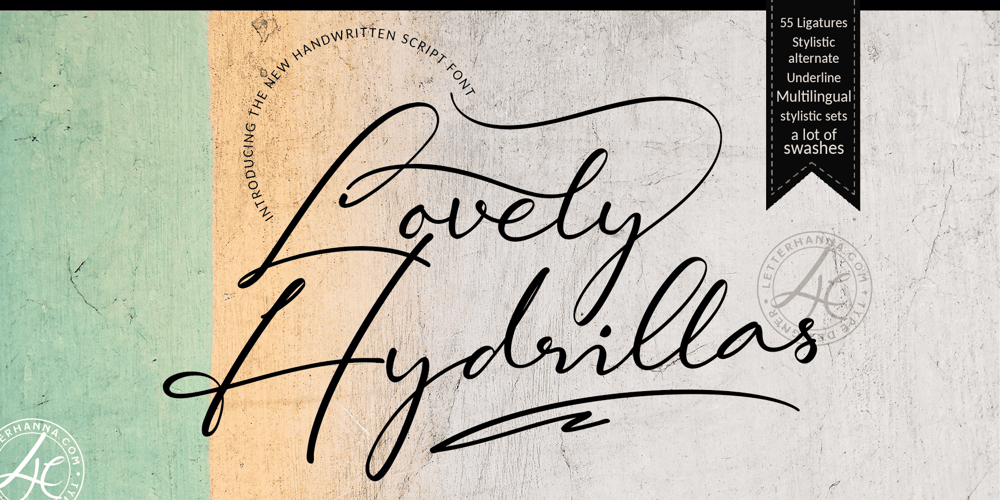
Lovely Hydrillas Font Family was designed by Rinaldo Hasibuan and published by Letterhanna Studio. Lovely Hydrillas contains 1 styles and family package options. Lovely Hydrillas Font is a modern handwritten font loaded with 55 ligatures for that handwriting look. Lovely Hydrillas Script Font can be used for wedding invitations and wedding calligraphy, feminine or organic logos, small business branding, packaging, and more!